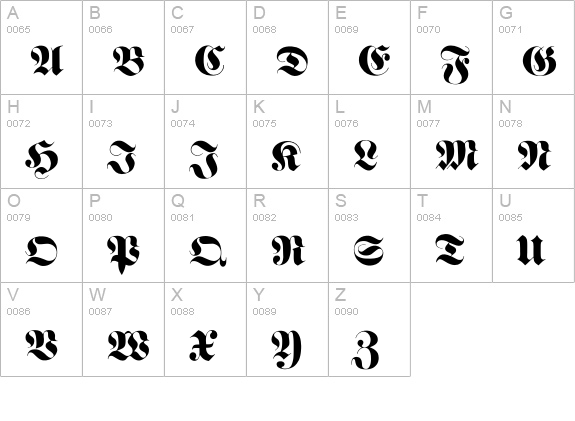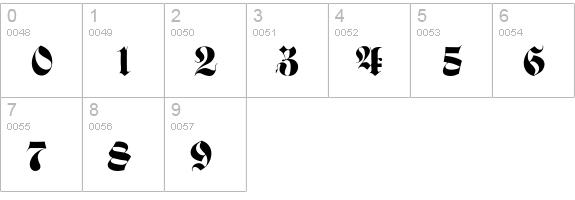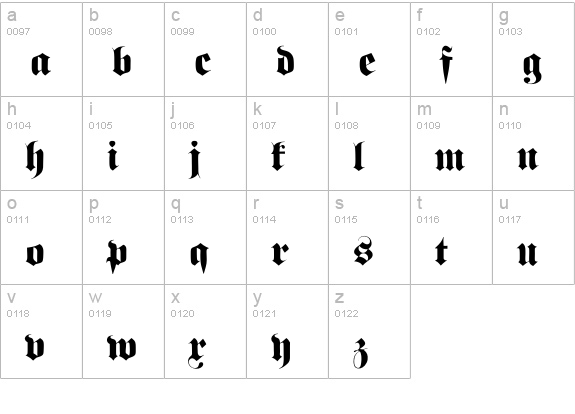
FrakturFett Font Details
FrakturFett is a striking and bold gothic-style font that exudes a timeless and classic appeal. With its intricate details and sharp edges, this font is perfect for adding a touch of elegance and sophistication to your designs. The strong and commanding presence of FrakturFett makes it ideal for headlines, titles, and other prominent text elements that need to make a statement. The beauty of FrakturFett lies in its unique and distinct design, which sets it apart from other fonts. Its rich history and cultural significance add an extra layer of depth and character to any project it is used in. Whether you're working on a vintage-inspired poster, a medieval-themed invitation, or a gothic-inspired logo, FrakturFett will bring a touch of old-world charm to your designs. Best of all, FrakturFett is freely available to download at FontsMarket.com, making it easily accessible for designers and creatives looking to enhance their projects with this exquisite font. Don't miss the opportunity to add FrakturFett to your font collection and elevate your designs with its timeless beauty and elegance.